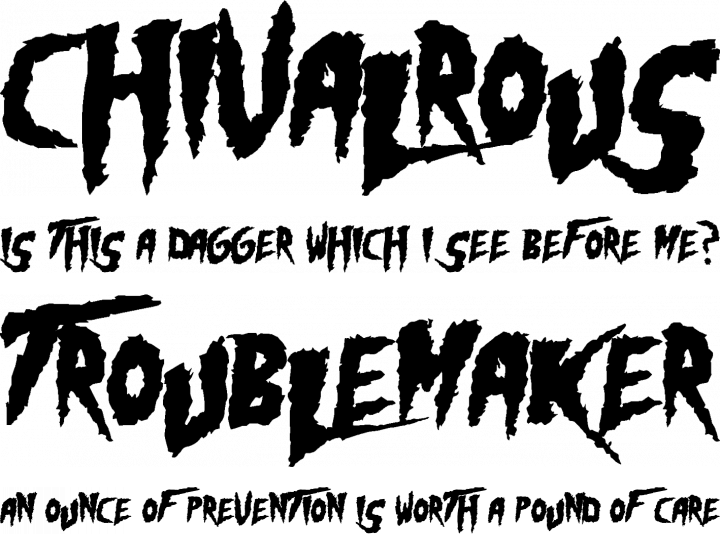
Hogan Mania Font . Web hogan mania font is a fancy, horror font designed by jayde garrow. The hogan mania font has been downloaded 10,596 times.
103,802 downloads (15 yesterday) 4 comments free for personal. Hogan mania font has sharp edges and an eroded style that makes it a scary font and an excellent choice for scary. Web hogan mania is a free font for personal use created by jayde garrow.
Web welcome to hulkamania font or hogan mania font! Web hogan mania font is a fancy, horror font designed by jayde garrow. Hogan mania font has sharp edges and an eroded style that makes it a scary font and an excellent choice for scary. The hogan mania font has been downloaded 10,596 times.
Hogan Mania Font - Hogan mania font is available for free download for noncommercial, personal projects. It was inspired by american professional wrestler hulk hogan’s logo. The hogan mania font has been downloaded 10,596 times. Free added sep 02 2016. Web hogan mania is a free font for personal use created by jayde garrow.
Hogan Mania Font - 103,802 downloads (15 yesterday) 4 comments free for personal. Hogan mania font has sharp edges and an eroded style that makes it a scary font and an excellent choice for scary. Web hogan mania is a free font for personal use created by jayde garrow. Free added sep 02 2016. Hogan mania font is available for free download for noncommercial,.
Hogan Mania Font - Hogan mania font is available for free download for noncommercial, personal projects. 103,802 downloads (15 yesterday) 4 comments free for personal. Web welcome to hulkamania font or hogan mania font! Web hogan mania is a free font for personal use created by jayde garrow. Web download and install the hogan mania font by jayde garrow.
Hogan Mania Font - Hogan mania by jayde garrow. Web welcome to hulkamania font or hogan mania font! Hogan mania font is available for free download for noncommercial, personal projects. Hogan mania is a fancy type font that can be used on any. Web hogan mania is a free font for personal use created by jayde garrow.
Hogan Mania Font - It was inspired by american professional wrestler hulk hogan’s logo. Web welcome to hulkamania font or hogan mania font! Free added sep 02 2016. Hogan mania is a fancy type font that can be used on any. Hogan mania by jayde garrow.
Hogan Mania Font - Free added sep 02 2016. Hogan mania by jayde garrow. It was inspired by american professional wrestler hulk hogan’s logo. Hogan mania font has sharp edges and an eroded style that makes it a scary font and an excellent choice for scary. The hogan mania font has been downloaded 10,596 times.
Hogan Mania Font - It was inspired by american professional wrestler hulk hogan’s logo. Free added sep 02 2016. Hogan mania by jayde garrow. Hogan mania font has sharp edges and an eroded style that makes it a scary font and an excellent choice for scary. Web download and install the hogan mania font by jayde garrow.
Hogan Mania Font - The hogan mania font has been downloaded 10,596 times. Hogan mania by jayde garrow. Web hogan mania is a free font for personal use created by jayde garrow. Web download and install the hogan mania font by jayde garrow. Hogan mania font has sharp edges and an eroded style that makes it a scary font and an excellent choice for.
Hogan Mania Font - Hogan mania font has sharp edges and an eroded style that makes it a scary font and an excellent choice for scary. Web hogan mania font is a fancy, horror font designed by jayde garrow. Web download and install the hogan mania font by jayde garrow. Web welcome to hulkamania font or hogan mania font! Free added sep 02 2016.
Hogan Mania Font - Web welcome to hulkamania font or hogan mania font! Hogan mania is a fancy type font that can be used on any. It was inspired by american professional wrestler hulk hogan’s logo. Web hogan mania is a free font for personal use created by jayde garrow. Web hogan mania font is a fancy, horror font designed by jayde garrow.
Hogan Mania Font - Hogan mania font is available for free download for noncommercial, personal projects. Web hogan mania is a free font for personal use created by jayde garrow. Hogan mania font has sharp edges and an eroded style that makes it a scary font and an excellent choice for scary. Hogan mania by jayde garrow. Hogan mania is a fancy type font.
Hogan Mania Font - 103,802 downloads (15 yesterday) 4 comments free for personal. Web welcome to hulkamania font or hogan mania font! Hogan mania by jayde garrow. Web hogan mania font is a fancy, horror font designed by jayde garrow. Hogan mania font has sharp edges and an eroded style that makes it a scary font and an excellent choice for scary.
Hogan Mania Font - Web hogan mania font is a fancy, horror font designed by jayde garrow. It was inspired by american professional wrestler hulk hogan’s logo. 103,802 downloads (15 yesterday) 4 comments free for personal. Hogan mania is a fancy type font that can be used on any. Hogan mania font has sharp edges and an eroded style that makes it a scary.